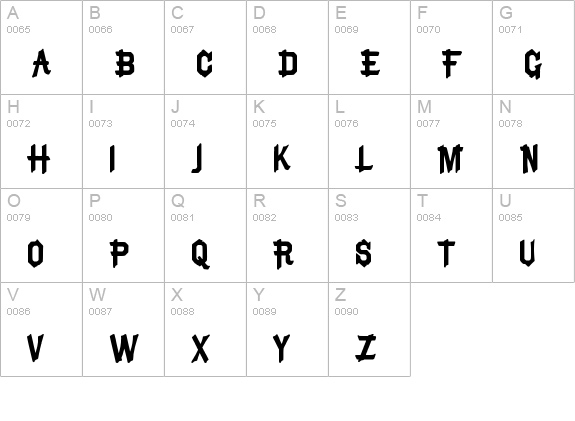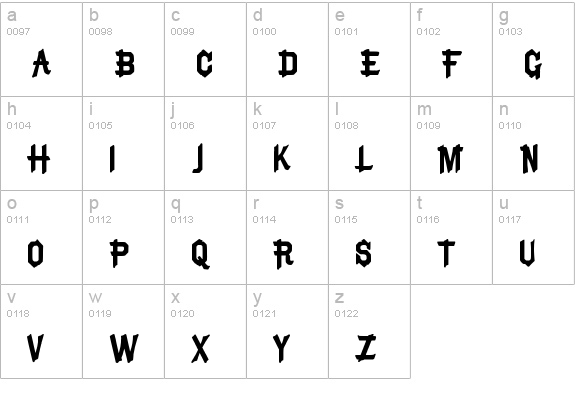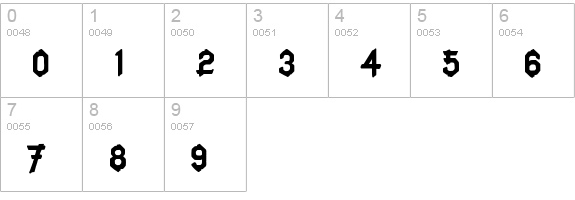
Bruce Mikita Two Font Details
Bruce Mikita Two is a stunning and elegant font that exudes sophistication and style. With its modern yet timeless design, this font is perfect for a wide range of design projects, from branding to invitations to social media graphics. Its sleek lines and unique curves will add a touch of class to any project. What sets Bruce Mikita Two apart is its versatility - it can be used for both headings and body text, making it a truly versatile font choice. Whether you're designing a sleek business card or creating a beautiful wedding invitation, Bruce Mikita Two will elevate your design to the next level. And the best part? Bruce Mikita Two is completely free to download at FontsMarket.com. So why wait? Add this gorgeous font to your collection today and take your designs to new heights.